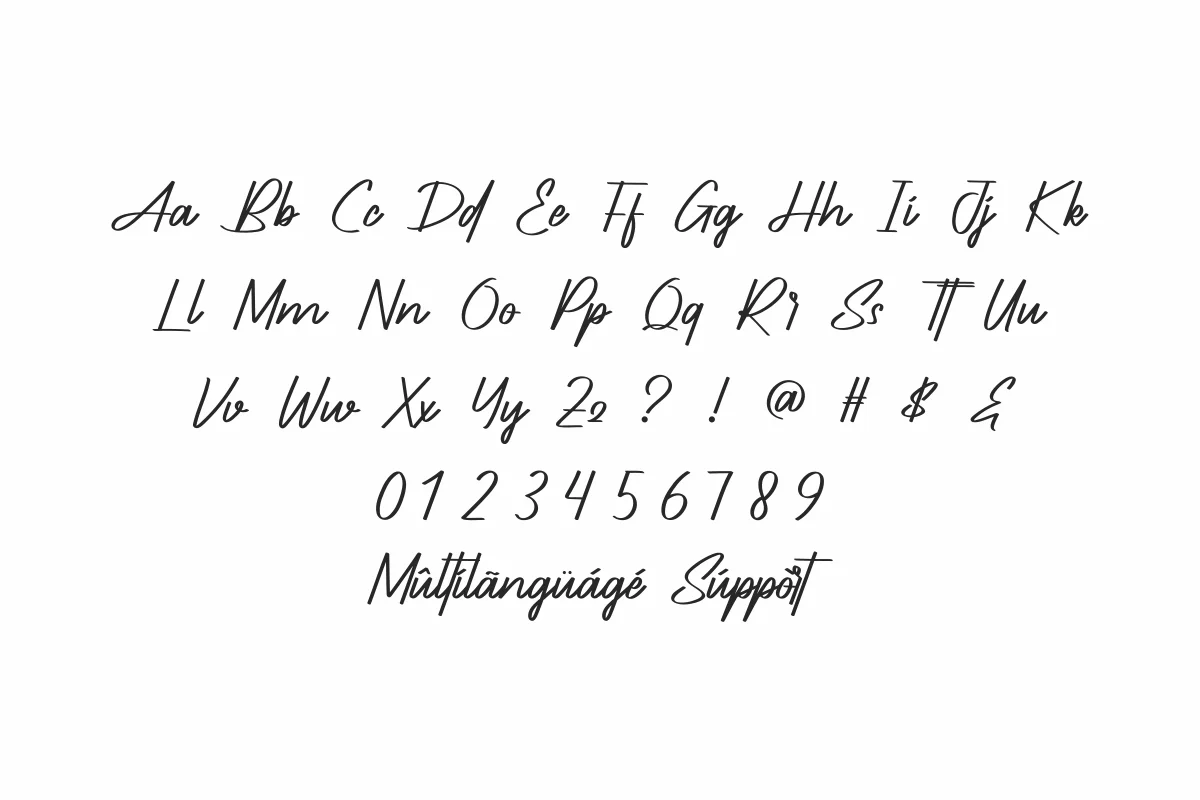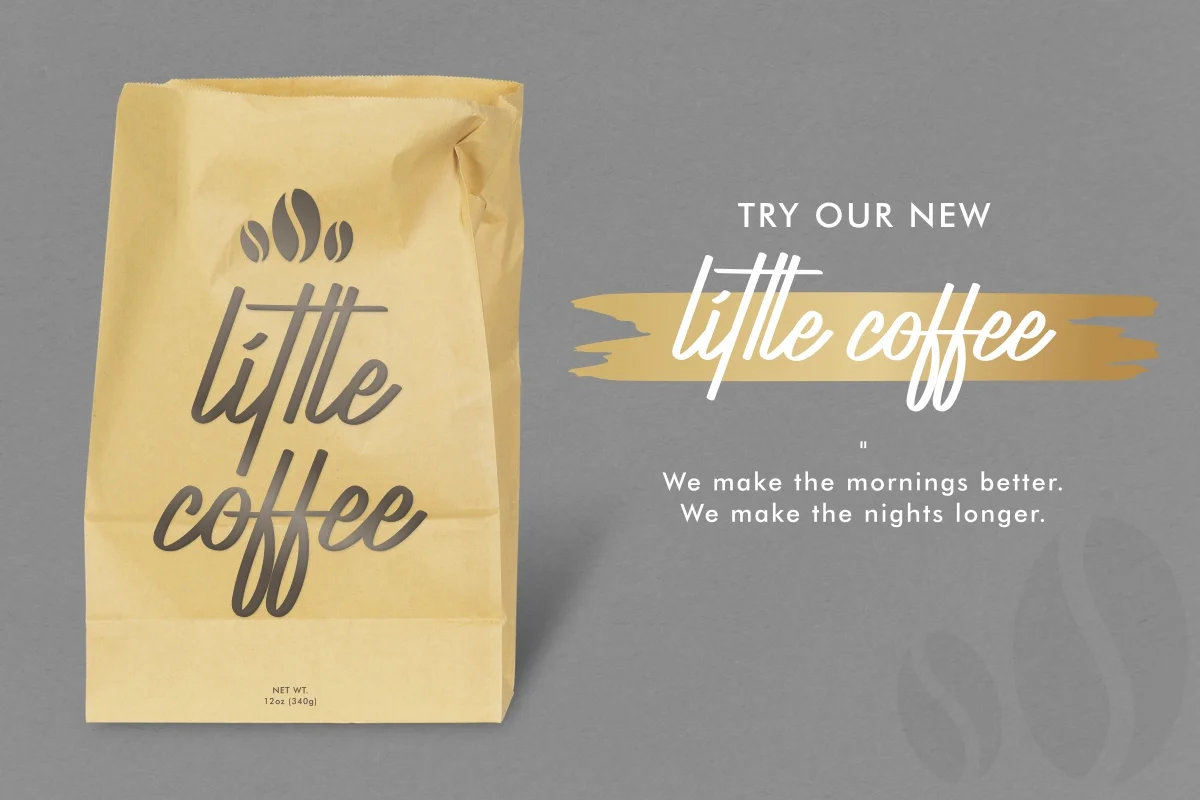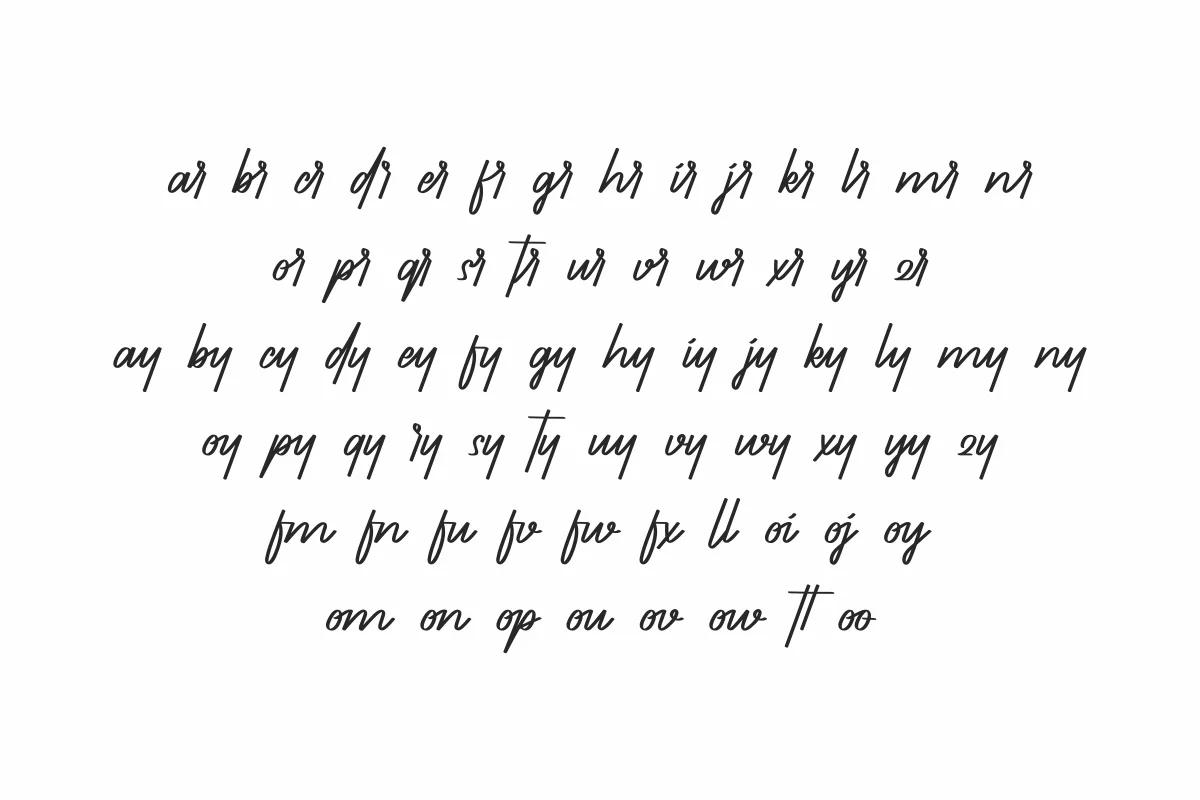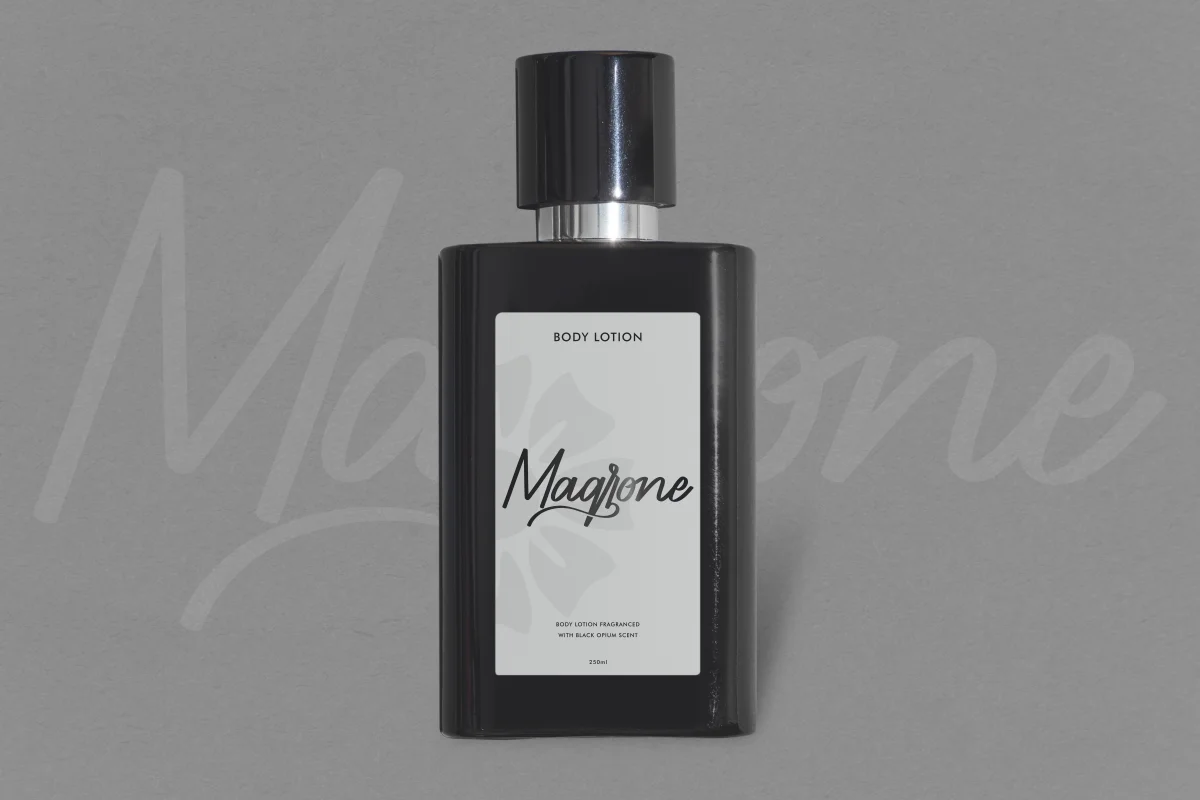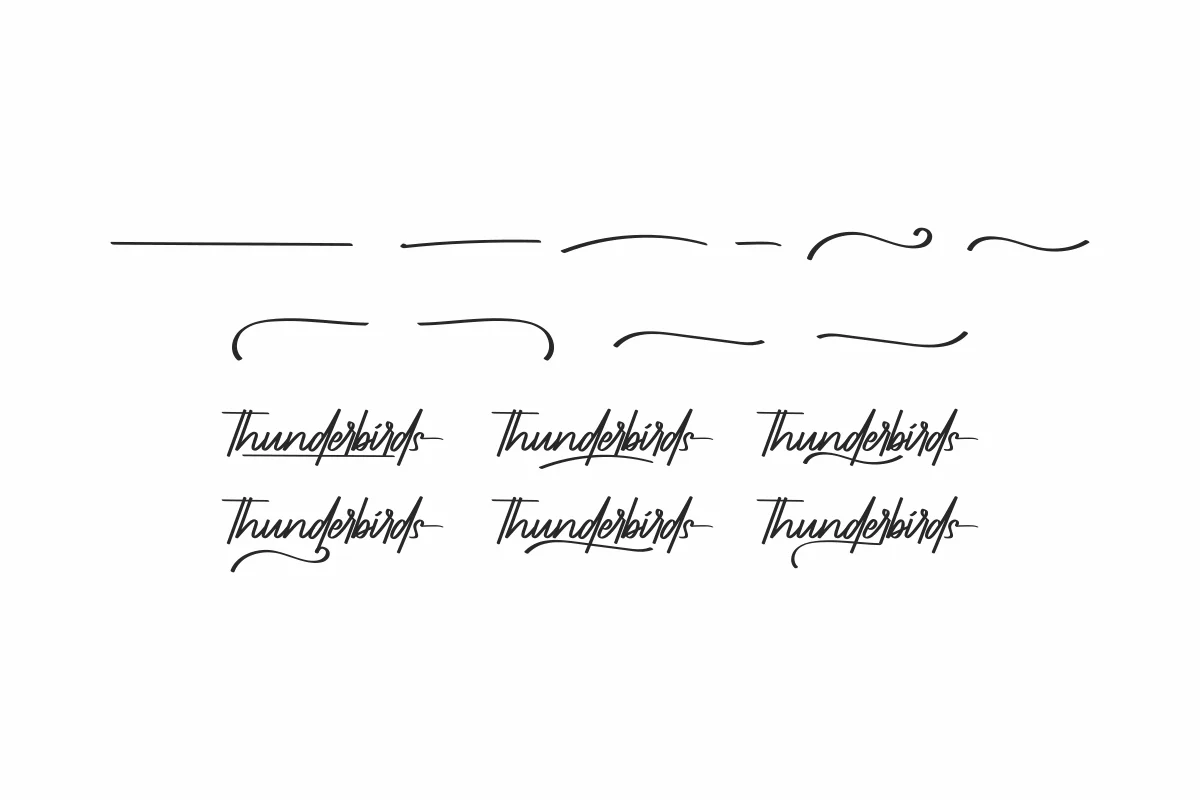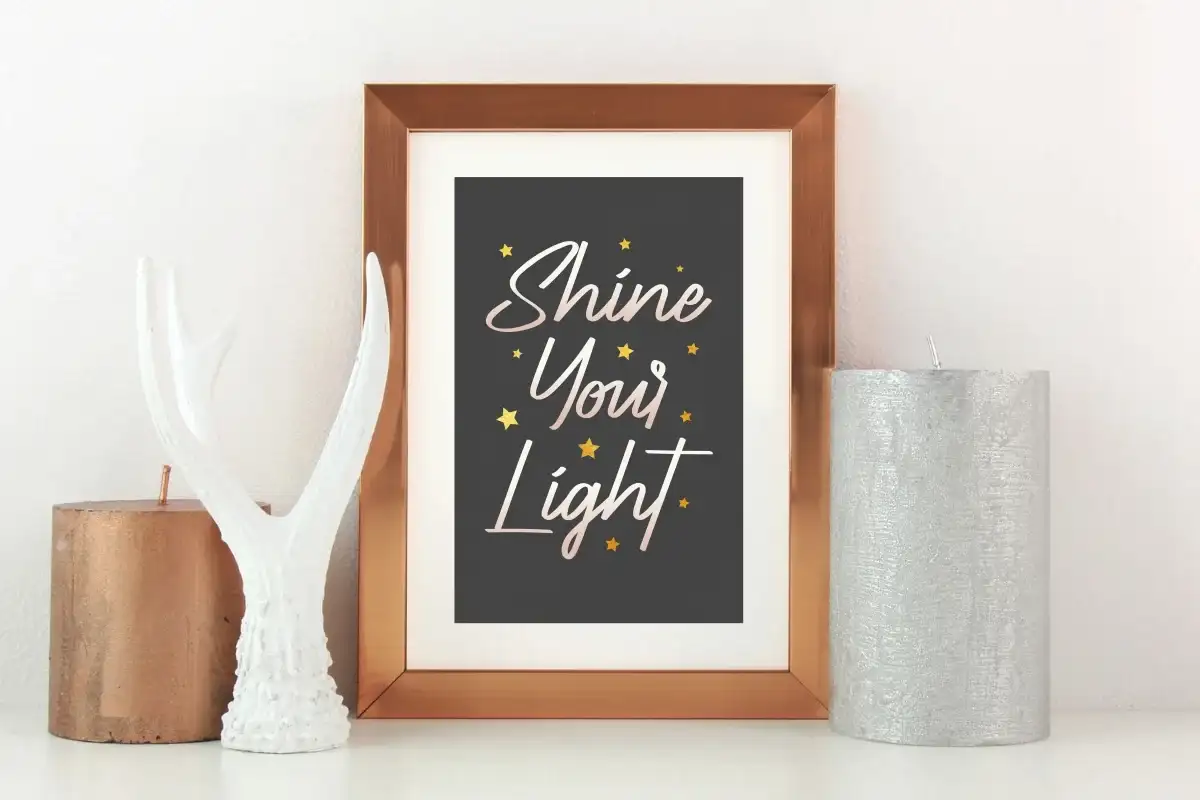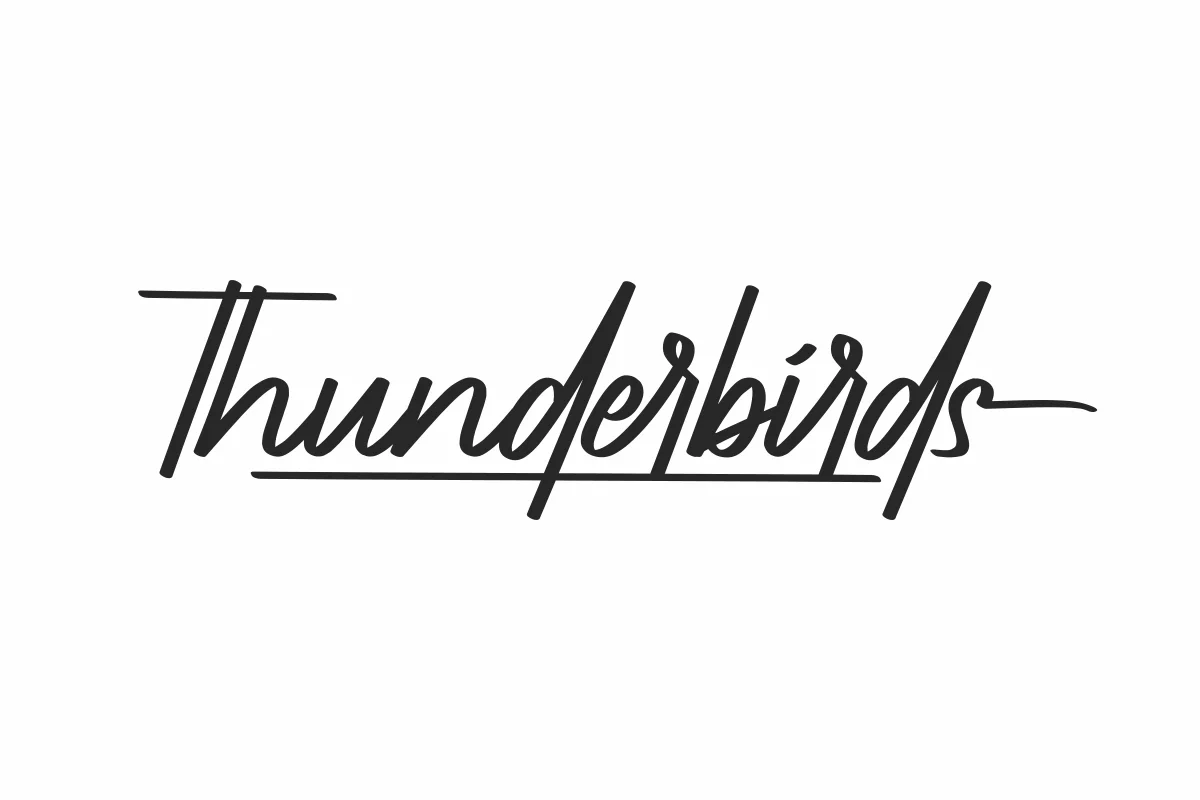
Thunderbirds Font is a classic signature handwriting font, Made with love and dedication in Indonesia.
Thunderbirds Font is a beautiful signature handwriting font created by NihStudio, designed by Widi and Suci in 2020. Try the font by typing your own text below.
Crafted with care, Thunderbirds features a clean and well-kerned character set. Its classic, glamorous, and light brush style is perfect for designers looking to add a premium and personal touch to their work. It is PUA encoded, making all characters fully accessible without the need for additional design software.
Elegant and natural signature font style
Handwritten with smooth curves and light brush strokes
Branding & Logo Design
Wedding Invitations & Event Designs
Stationery & Business Cards
Real Estate & Architecture Firms
Beauty Brands & Makeup Artists
Hotels, Travel, and Musicians
Law Firms & Creative Professionals
Thunderbirds Font is the perfect choice for projects that require a luxury handwritten font with a modern yet timeless look. Whether you’re creating wedding invitations, brand identity, or social media content, this typeface will enhance your visual presence.